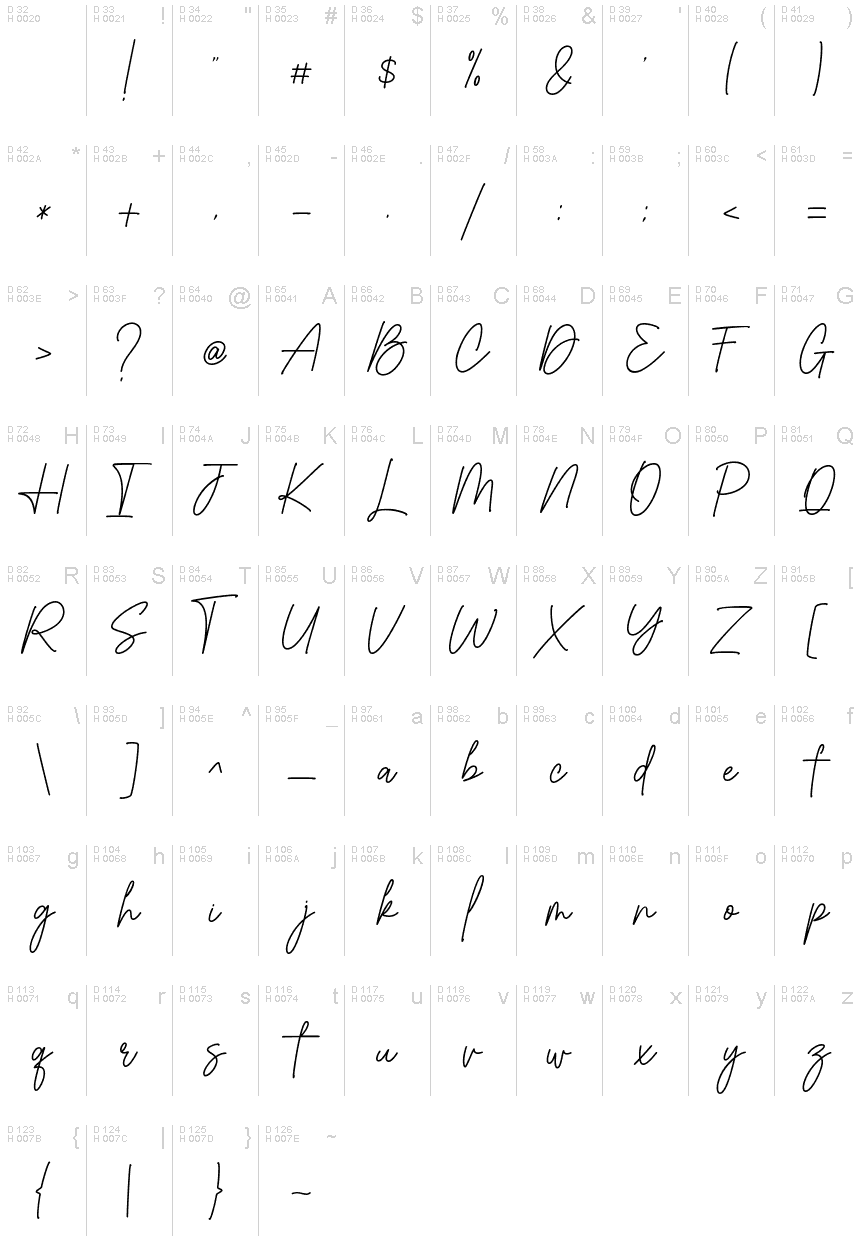
Rockline
Rockline, a creation of the talented Ramli Setiadi, is a font that captures the essence of personal touch in its handwritten, signature style. With its light and airy weight, Rockline exudes an effortless elegance that is both inviting and dynamic. The fluidity of its characters suggests a blend of casual charm and sophistication, making it a versatile choice for a multitude of creative endeavors.
Upon visual inspection, one can appreciate the delicate balance between legibility and artistic flair that Rockline offers. Its sweeping curves and distinct baseline give it the sort of authenticity one might find in an artist's signature at the bottom of a masterpiece. This font is not just about aesthetics; it's about conveying personality and individuality through typography.
Rockline's suitability extends to branding projects, wedding invitations, or any design piece seeking to make an intimate connection with its audience. It resonates particularly well with industries that value bespoke experiences—such as fashion labels or artisanal products—where every detail counts in telling their unique story.
Whether for print or digital media, Rockline stands as an excellent choice for designers aiming to impart a sense of personalization and refined taste within their work.